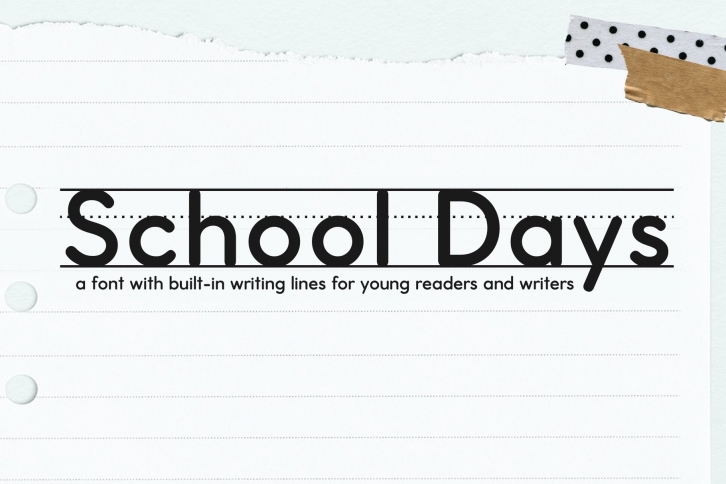
School Days with Writing Lines is a great font that was designed by KA Designs. Imagine the amount of combinations you can create using this font! The archive is 11.18 MB and it was released on August 16, 2021. School Days with Writing Lines looks beautiful on wedding invitations, greeting cards, logos, posters, labels, t-shirt designs, logos, business cards and is perfect for use in ink or watercolor works, fashion, magazines, packaging and food menus, children's books and more!